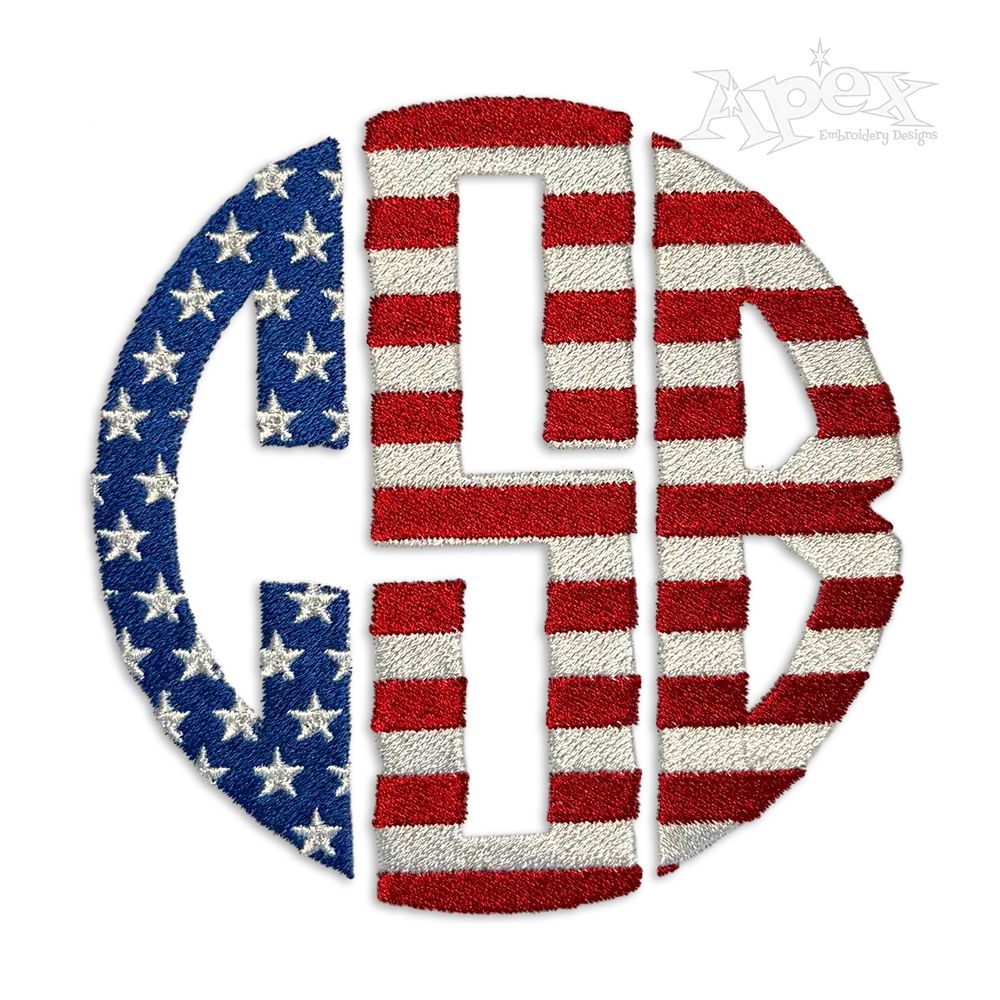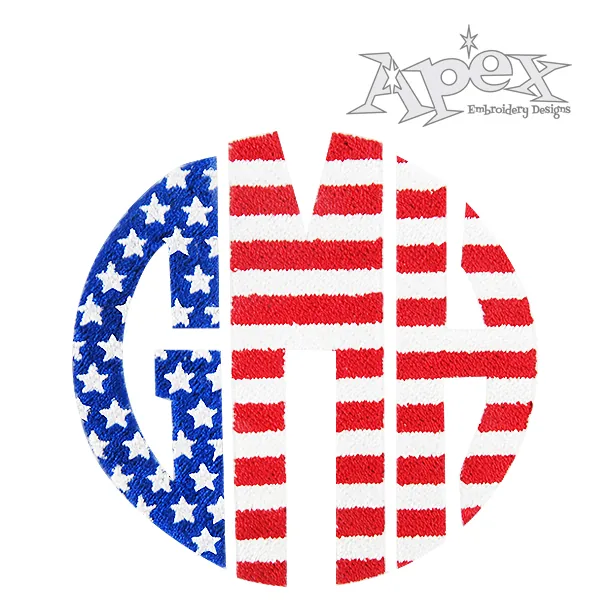
USA Flag Round Monogram Font
Born from a love for coastal regattas, crisp summer cottons, and starlit Independence Day celebrations, the USA Flag Round Monogram Font captures the proud spirit of Americana through exquisite embroidery. In digitizing this collection, we envisioned a design that honors Old Glory while offering a sophisticated, modern silhouette for heirloom personalized gifting. The sweeping circular boundary frames the American flag's timeless stars and stripes, seamlessly integrating custom monogramming into a unified patriotic medallion. Each stitch radiates with crisp contrast and fluid luster, elevating casual weekend attire and bespoke resort wear into authentic statements of heritage and classic style.
Project Ideas for USA Flag Round Monogram Font
This patriotic round monogram lends itself to celebrations of all seasons, whether crafting memorable gifts for holiday hosts or designing bespoke family gear for Fourth of July parades:
- Heavyweight Canvas Totes: Stitch the 6" or 8" medallion onto structured nautical beach bags and boat totes for seaside summer weekends.
- Bespoke Outerwear: Embellish the back yoke of a vintage denim jacket or utility vest for a bold, patriotic focal point.
- Lawn & Picnic Throws: Personalize heirloom canvas quilts, wool picnic blankets, and stadium throws for open-air concerts and fireworks viewing.
- Resort & Golf Polos: Use the 3" or 4" size on classic cotton pique polo shirts, layering refined satin stitch alphabet details on the chest.
- Commemorative Gifts: Embroider commemorative pillows and weekend duffels for military homecomings, holiday hostesses, and patriotic weddings.
Balancing proportion and garment drape ensures your finished embroidery stitches out with effortless symmetry and professional polish:
- Center Back: Position the 6" or 8" monogram centered between the shoulder blades on denim jackets, canvas chore coats, or oversized hoodies for an unmistakable statement.
- Left Chest: Utilize the 3" design on polo shirts, windbreakers, and light jackets, aligning the top edge approximately 7 to 9 inches down from the shoulder seam and midway between the center placket and armhole.
- Tote Center Panel: Apply the 4" or 6" size directly centered between the webbing handles on structured tote bags to anchor the bag's visual weight.
- Blanket Corners: Place the 6" or 8" monogram diagonally 4 inches from the hemmed corner of throws and quilts for an elevated, heirloom finish.
USA Flag Round Monogram Font Craft & Letterform Details
Digitizing a circular monogram with multi-layered symbolic elements requires meticulous tension management and thoughtful pathing. To prevent puckering and maintain a flawlessly round perimeter, we engineered a firm foundation of contour and traveling underlay beneath the satin borders. This stabilizes the fabric grain, guaranteeing that circles stay true to their geometry even on textured canvases and knits.
The stars and horizontal stripes are calculated with calibrated stitch angles, creating visual separation so the red and white bands catch the light differently from the blue field and monogram initials. Rather than stacking heavy blocks of thread that can create bulletproof stiffness, our density distribution allows the fabric to retain its natural hand and supple drape. The result is a luminous, heirloom-grade embroidery font where letterforms, stars, and bold stripes harmonize into one seamless tribute to American craftsmanship.